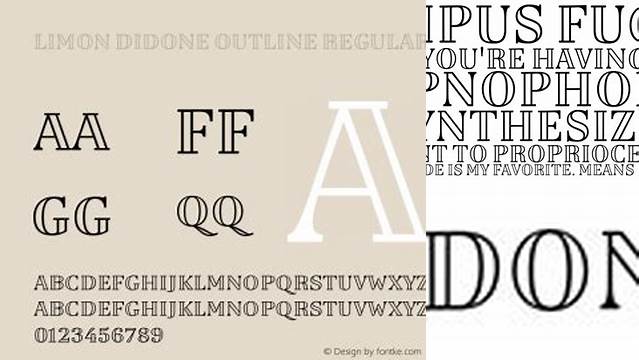
Limon Didone Outline: Free Font & Uses [2024]
Hey guys! Are you looking for a font that screams elegance and sophistication with a modern twist? Then you've landed in the right spot! Today, we're diving deep into the world of the Limon Didone Outline Regular Free Font. This font is a total game-changer, perfect for adding a touch of class to your designs. Whether you're a seasoned designer or just starting, this font is a must-have in your toolkit. So, let's get started and explore everything about this fantastic typeface!
1. What is Limon Didone Outline Regular?
Limon Didone Outline Regular is a stunning font that falls under the Didone classification. For those not in the know, Didone fonts are characterized by their high contrast between thick and thin strokes, vertical stress, and unbracketed serifs (those little feet at the end of the letters). Limon Didone Outline Regular takes this classic style and gives it a contemporary edge by presenting it in an outline form. This means the letters are not filled in, creating a delicate and airy feel. This unique characteristic makes it incredibly versatile, suitable for a range of design projects from branding to editorial design. When you first set your eyes on Limon Didone Outline Regular, you'll immediately notice its sophisticated and clean aesthetic. The delicate lines and the contrast between the thick and thin strokes give it an air of elegance, while the outline style adds a touch of modernity. This combination makes it a font that stands out while still maintaining readability, a crucial balance for any typeface. This font is a great choice for logos, headlines, and other display purposes where you want to make a statement. Its refined appearance can elevate any design, giving it a polished and professional look. Think of luxury brands, high-end fashion magazines, or upscale wedding invitations – Limon Didone Outline Regular fits right in. But its versatility doesn't stop there. It can also be used in smaller sizes for body text, although it's essential to ensure readability is maintained. This font's adaptability is one of its key strengths. It’s not just about looking pretty; it’s about being functional and effective in various design contexts. Whether you're working on a digital project or a print design, this font can adapt seamlessly. It works well on websites, posters, brochures, and even packaging. Its clean lines ensure it looks crisp and clear, no matter the medium. So, if you're looking for a font that combines classic elegance with modern flair, Limon Didone Outline Regular is definitely worth considering. It’s a typeface that can bring a touch of sophistication to any project, making it a valuable addition to your font library.
2. Key Features of Limon Didone Outline Regular Font
Okay, so what makes the Limon Didone Outline Regular Font so special? Let’s break down its key features. First off, the high contrast between thick and thin strokes is a signature trait of Didone fonts, and Limon doesn’t disappoint. This contrast adds a dynamic and visually appealing element to the font, making it stand out. The thin strokes are delicate and refined, while the thick strokes provide a bold anchor, creating a balanced and eye-catching effect. Another important feature is its outline style. Unlike solid fonts, this one is presented in an outline form, which gives it a light and airy feel. This outline style not only adds a modern twist but also makes it versatile for layering and combining with other design elements. Imagine using it as a headline with a solid font for the body text – the contrast can be stunning! The Limon Didone Outline Regular Font also boasts unbracketed serifs. Serifs are those little extensions or strokes at the end of the main strokes of a letter, and unbracketed serifs mean they connect to the main stroke without a smooth transition. This gives the font a sharp and elegant look, further enhancing its sophisticated appeal. Think of the serifs as the finishing touches that add to the font's overall character and charm. But it’s not just about the visual elements; the readability of Limon Didone Outline Regular Font is also crucial. While it’s designed for display purposes like headlines and logos, it still needs to be legible. The font maintains a good balance between its decorative features and its functionality, ensuring that your message is clear and easy to read. The design of each letterform in Limon Didone Outline Regular Font is carefully crafted to ensure harmony and consistency. The spacing between letters, the height of the ascenders and descenders, and the overall proportions are all meticulously designed. This attention to detail contributes to the font's polished and professional appearance. Furthermore, the Limon Didone Outline Regular Font often includes a range of characters and glyphs, including uppercase and lowercase letters, numerals, punctuation marks, and special symbols. This comprehensive character set allows you to use the font in a variety of languages and design contexts, making it a versatile tool for any designer. In summary, the key features of Limon Didone Outline Regular Font – its high contrast, outline style, unbracketed serifs, readability, and meticulously crafted letterforms – make it a standout choice for anyone looking to add a touch of elegance and modernity to their projects.